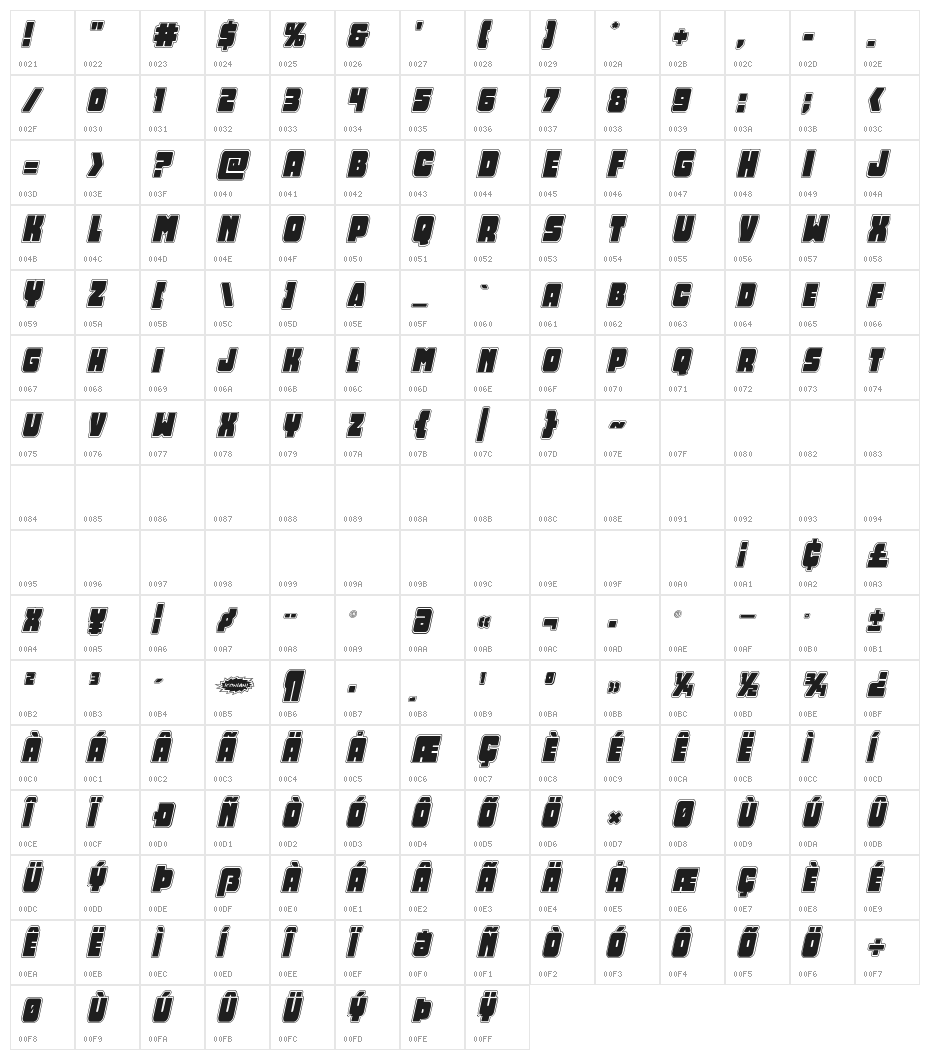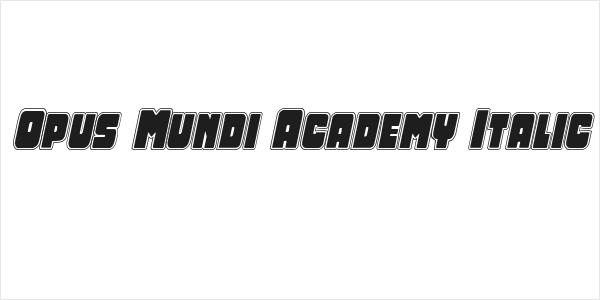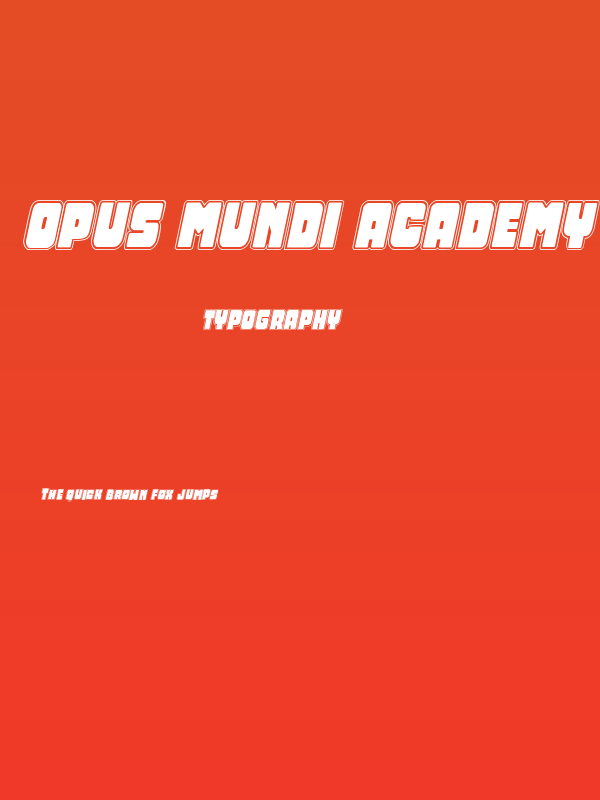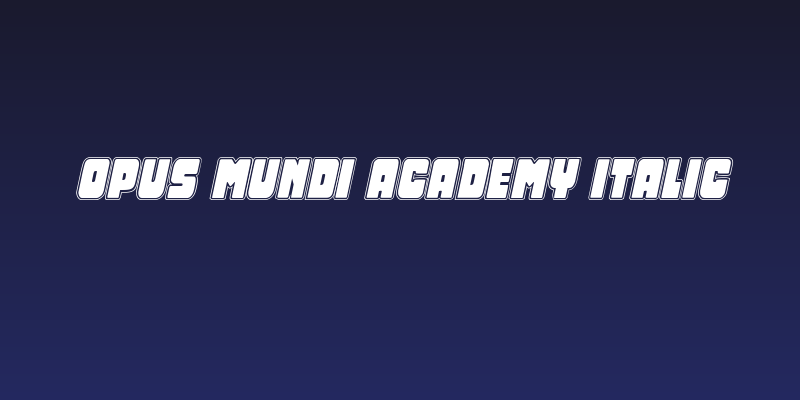
Opus Mundi Academy Italic Font
This font features bold, blocky characters with a strong, impactful presence. Each letter is outlined, creating a striking contrast between the solid interior and the defined edges. The uppercase and lowercase letters maintain a consistent style, with a slight slant that adds a dynamic, italicized effect. Numbers and special characters are designed to match the boldness and clarity of the alphabet, ensuring uniformity across all text. The font's style is reminiscent of retro or vintage signage, making it ideal for projects that require a bold statement.
| Proposed Projects | Ideal for posters, logos, headlines, and any design needing a bold, vintage touch. |